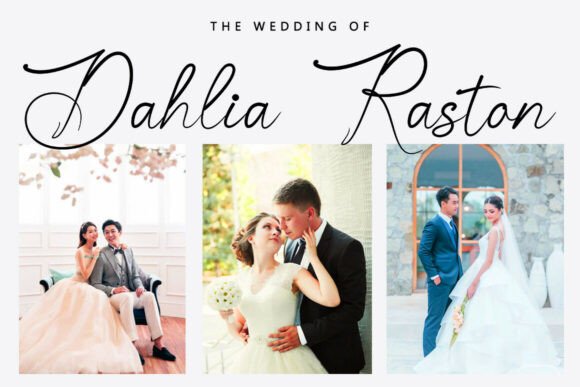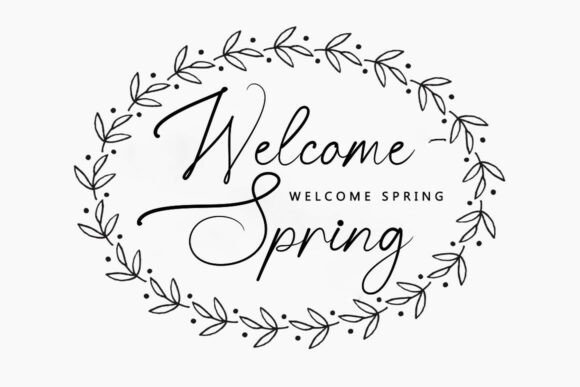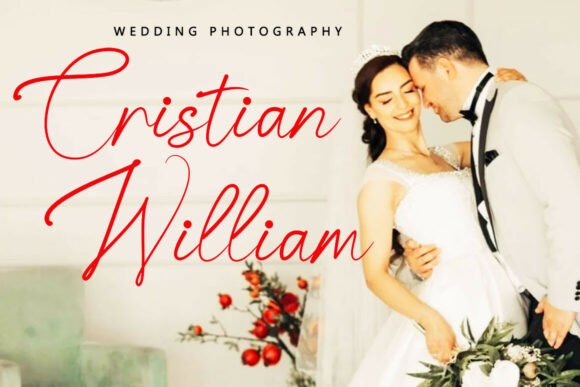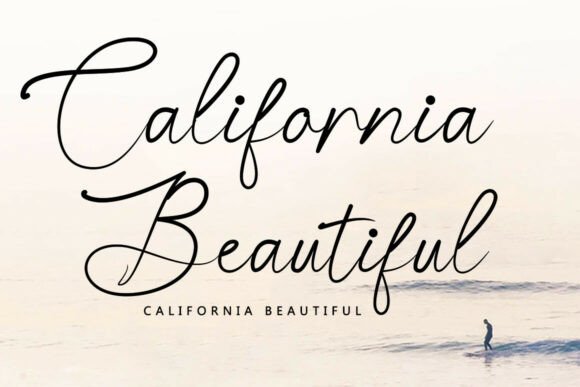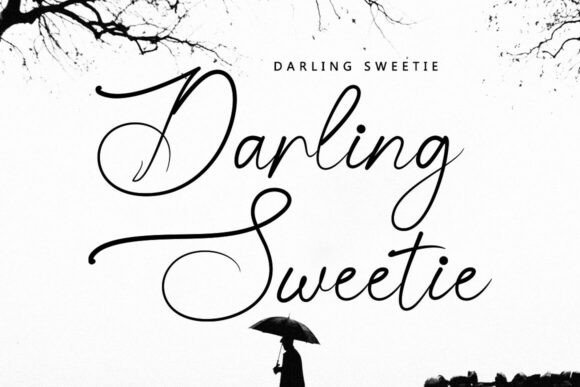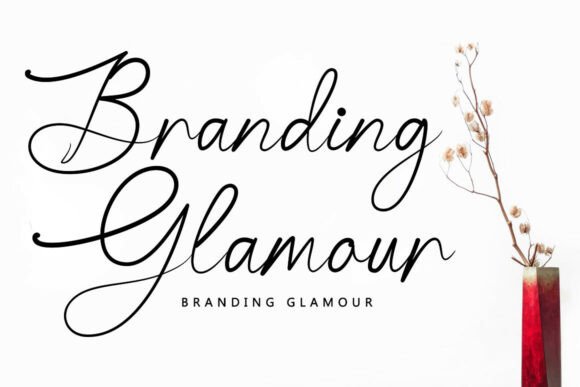
Unleashing the Magic of Your Signature Style
Have you ever found yourself stuck in front of a blank canvas, searching for the perfect font to bring your creative vision to life? You know, that elusive combination of elegance and personality that makes your design truly shine. For many designers, this is a common struggle, but what if you had the perfect tool to help you break through that creative block?
Enter the Bingston Signature Font, a stunning script font designed to elevate your designs with a touch of high-end sophistication. This gorgeous typeface is perfect for adding a personalized, romantic flair to your projects, whether you’re crafting wedding invitations, custom photography watermarks, or organic beauty branding.
Bingston Signature Font Key Features
- Unique Characteristics: The Bingston Signature Font features a unique blend of modern and vintage elements, with intricate details and subtle textures that give it a distinctive look.
- Style Options: The font includes multiple style options, including bold, italic, and condensed styles, allowing designers to add variety and interest to their designs.
Bingston Signature Font Review
Overall, I’m impressed with the Bingston Signature Font. ✨ It’s got a unique and elegant feel that’s perfect for high-end branding or luxury design projects. The font is highly customizable, with a range of options for adjusting the weight, spacing, and style. This level of control makes it a great choice for designers who want to create a consistent and professional look across multiple platforms.
The font’s versatility is one of its strongest features. ✨ It works well for both serif and sans-serif designs, and its subtle flair makes it perfect for titles and headings. I’ve also found it to be highly legible, even at smaller font sizes.
- Unique and elegant design
- Perfect for high-end branding or luxury design projects
- Works well for both serif and sans-serif designs
- Highly legible
- May not be suitable for casual or informal designs
- Not as extensive a character set as some other fonts
Overall, I’d give the Bingston Signature Font a solid 4 out of 5 stars. While it may have some limitations, its unique design and high level of customization make it a great choice for designers who want to create a high-end look.
The Bingston Signature Font is ideal for:
- Creative branding and marketing materials.
- Personalized invitations and event materials.
- Wedding stationery and decor.
- Special occasion graphics and decorations.
For optimal results, use the Bingston Signature Font in conjunction with high-quality images and graphics to create a cohesive and visually appealing design.
Alternatives to Bingston Signature Font
Playfair Display is a luxurious, high-end serif font ideal for creating a sophisticated and elegant atmosphere. It’s perfect for use in high-end branding, magazine covers, and luxury product packaging.
Comparison to Bingston Signature Font: Playfair Display has a more refined and classic look, whereas Bingston Signature Font has a more modern and minimalist aesthetic. While Bingston is ideal for clean and simple designs, Playfair Display is better suited for complex and ornate designs.
Great Vibes is a modern, elegant script font that’s perfect for creating a friendly and approachable atmosphere. It’s ideal for use in branding, packaging, and advertising.
What font styles and weights are included in the Bingston Signature Font?
The Bingston Signature Font includes 8 font styles and 4 font weights, offering a range of options for designers to create unique and stylish typography. The font styles include: Regular, Italic, Bold, Bold Italic, Light, Light Italic, Black, and Black Italic.